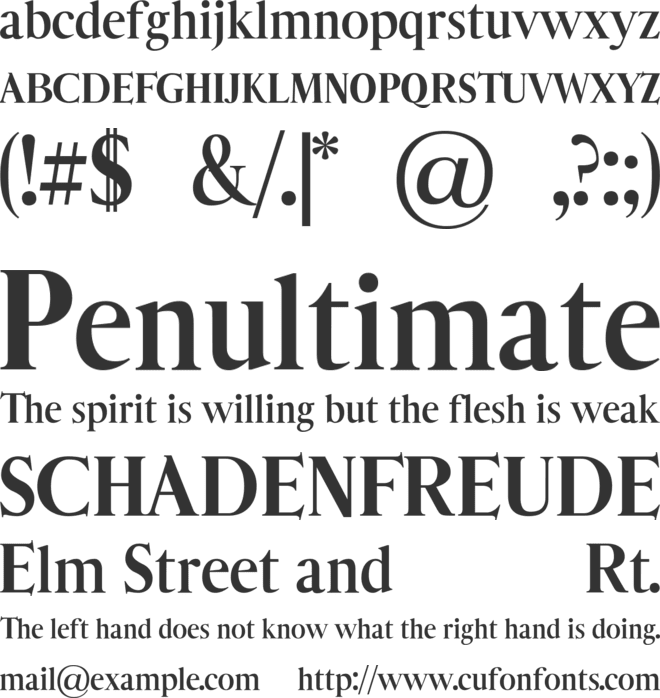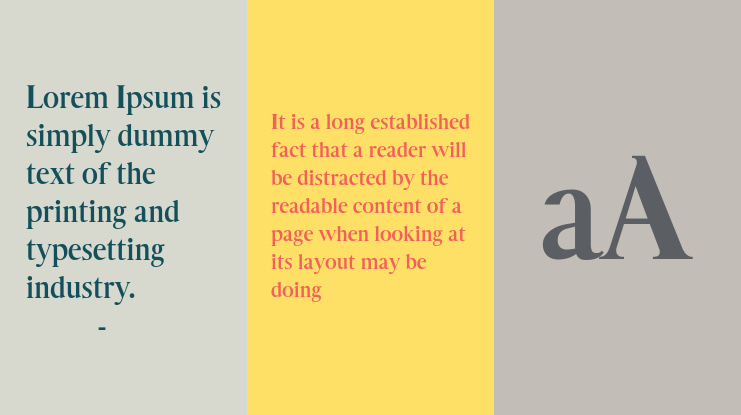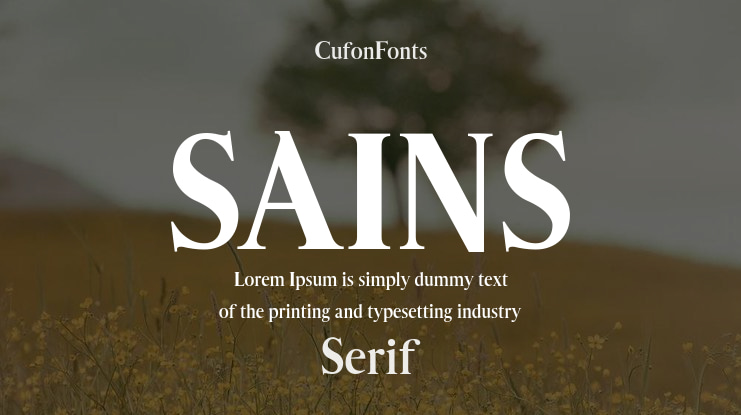
SAINS Font Family
Sains is a delicate serif with luxurious elegance and multilingual support—perfect for skincare packaging, editorial branding, and high-end product design.